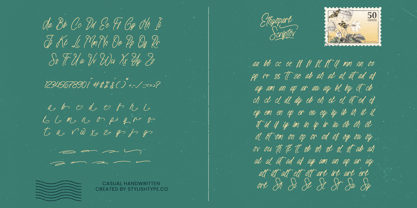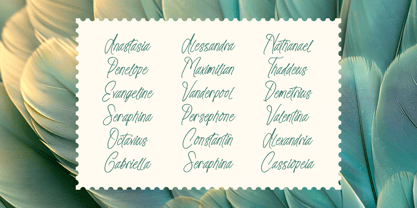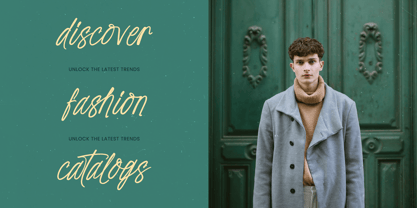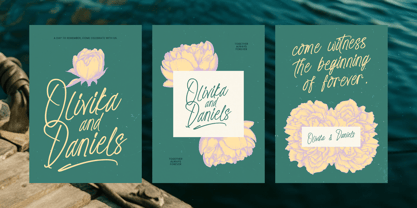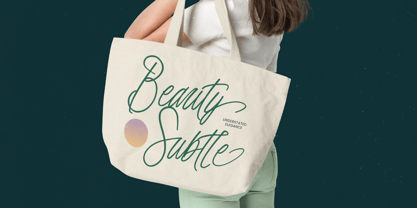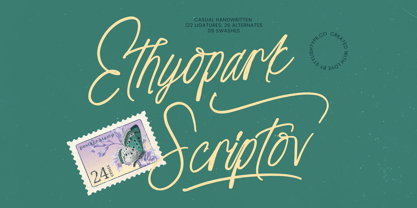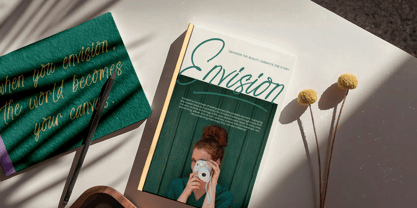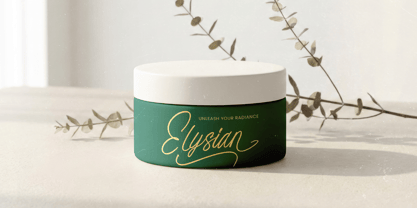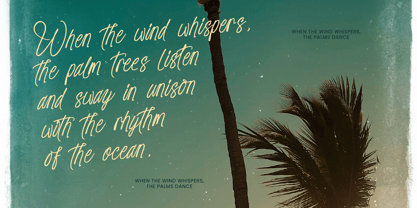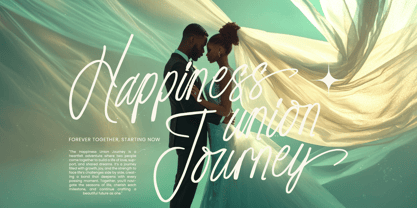
Ethyopark Scriptov
von Stylishtype Studio
Die Schriftfamilie Ethyopark Scriptov wurde von Heru Utama Putra entworfen und von Stylishtype Studio veröffentlicht. Ethyopark Scriptov enthält 2 Stile und Familienpaketoptionen. Mehr über diese Familie
Ethyopark Scriptov – Casual Handwritten Font
Ethyopark Scriptov is a casual handwritten font that brings a laid-back and personalized feel to your design projects. With 122 ligatures, 26 alternate characters, and 09 swashes, this font offers a flowy and organic style perfect for projects that need an expressive and approachable vibe. The bold yet delicate strokes make it ideal for branding, invitations, posters, and any creative design that needs a unique handwritten touch.
This font embodies a natural flow, providing a warm and inviting personality that will add charm and style to any of your creative work. Whether you’re designing for personal projects, product packaging, or online content, Ethyopark Scriptov gives your message an authentic handwritten appearance with a touch of elegance.
Designer: Heru Utama Putra
Foundry: Stylishtype Studio